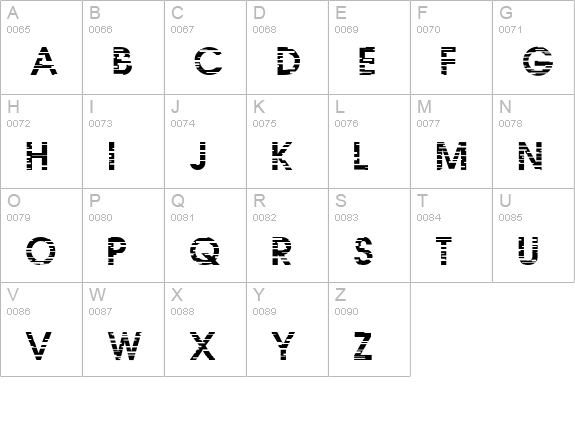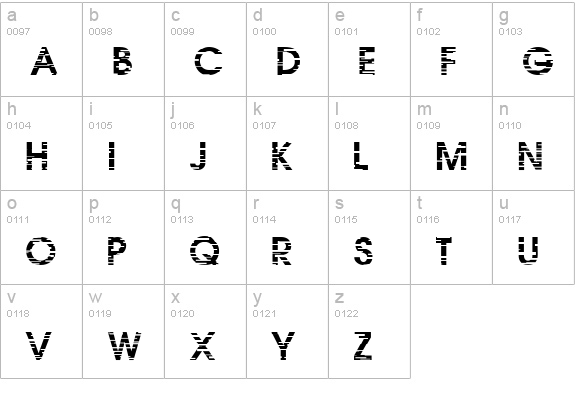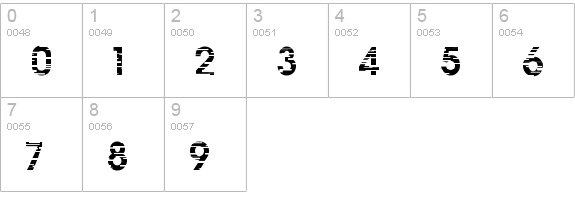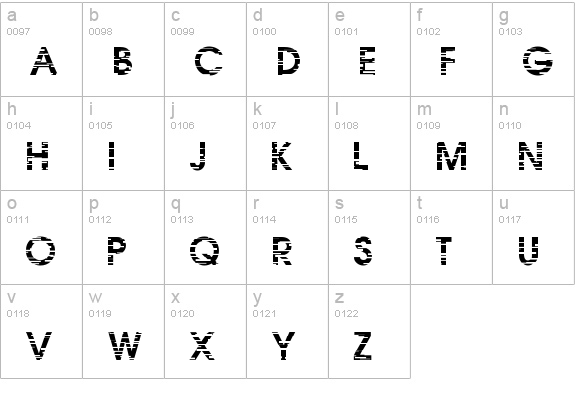
IxatNW font is a modern and stylish typeface that exudes elegance and sophistication. With its sleek lines and unique letterforms, this font is perfect for a wide range of design projects, from branding to editorial layouts. IxatNW font is versatile and can be used for both headings and body text, making it a practical choice for designers looking to add a touch of sophistication to their work. The best part about IxatNW font is that it is completely free to download at FontsMarket.com. This means that you can easily access this beautiful typeface and use it in your projects without any cost. Whether you are a professional designer looking for a high-quality font or a hobbyist looking to elevate your designs, IxatNW font is a fantastic choice that won't break the bank. Don't miss out on the opportunity to enhance your design projects with the elegant and stylish IxatNW font. Download it for free today at FontsMarket.com and start creating stunning designs that will captivate your audience.